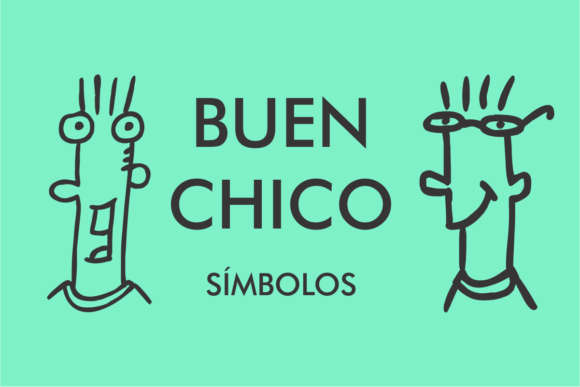
About Buen Chico Font
Buen Chico is a captivating and versatile dingbats font that brings a unique set of symbols to your designs. With its wide range of glyphs, this font offers a creative and visually appealing way to enhance your projects.
The symbols featured in Buen Chico are carefully designed to add a touch of style and character to your artwork. From decorative elements and ornaments to icons and illustrations, this font provides a diverse collection of symbols that can be used to create eye-catching designs.
Whether you’re designing a logo, a poster, a website, or any other creative project, Buen Chico offers a wealth of options to choose from. You can combine different symbols to create custom compositions, or use them individually to add emphasis and visual interest to your designs.
The versatility of Buen Chico allows you to use it in various contexts and themes. Whether you’re working on a vintage-inspired design, a modern graphic, or a playful illustration, this font can adapt to suit your creative vision.
In summary, Buen Chico is a captivating and versatile dingbats font that adds a touch of symbols to your designs. Its wide range of glyphs offers a creative and visually appealing way to enhance your projects. With Buen Chico, you can unleash your creativity and create captivating visuals that stand out.